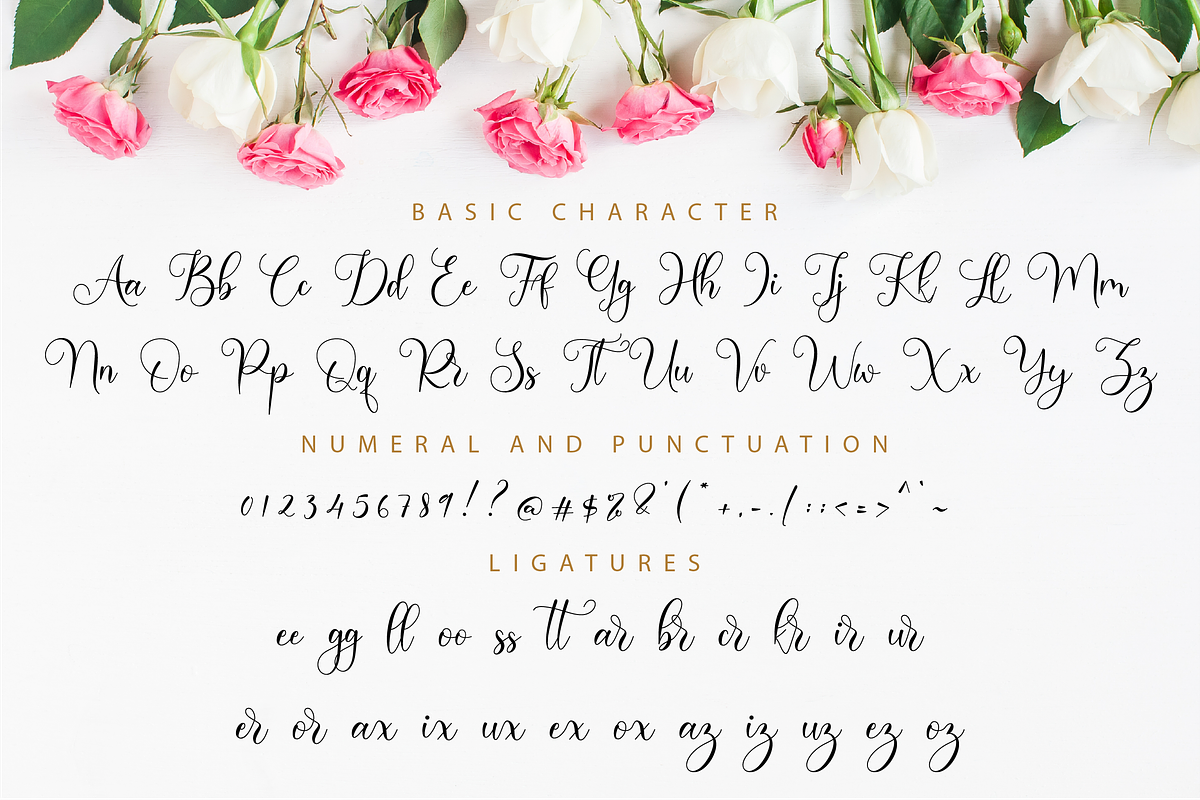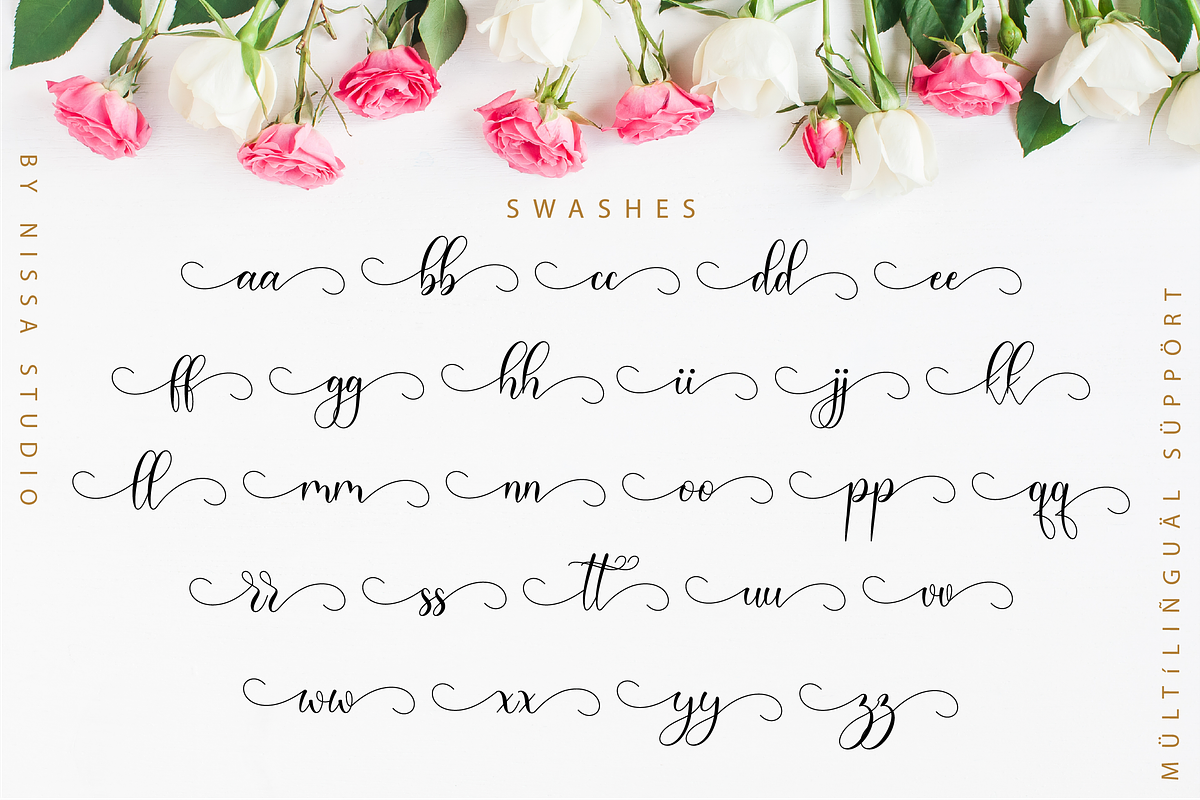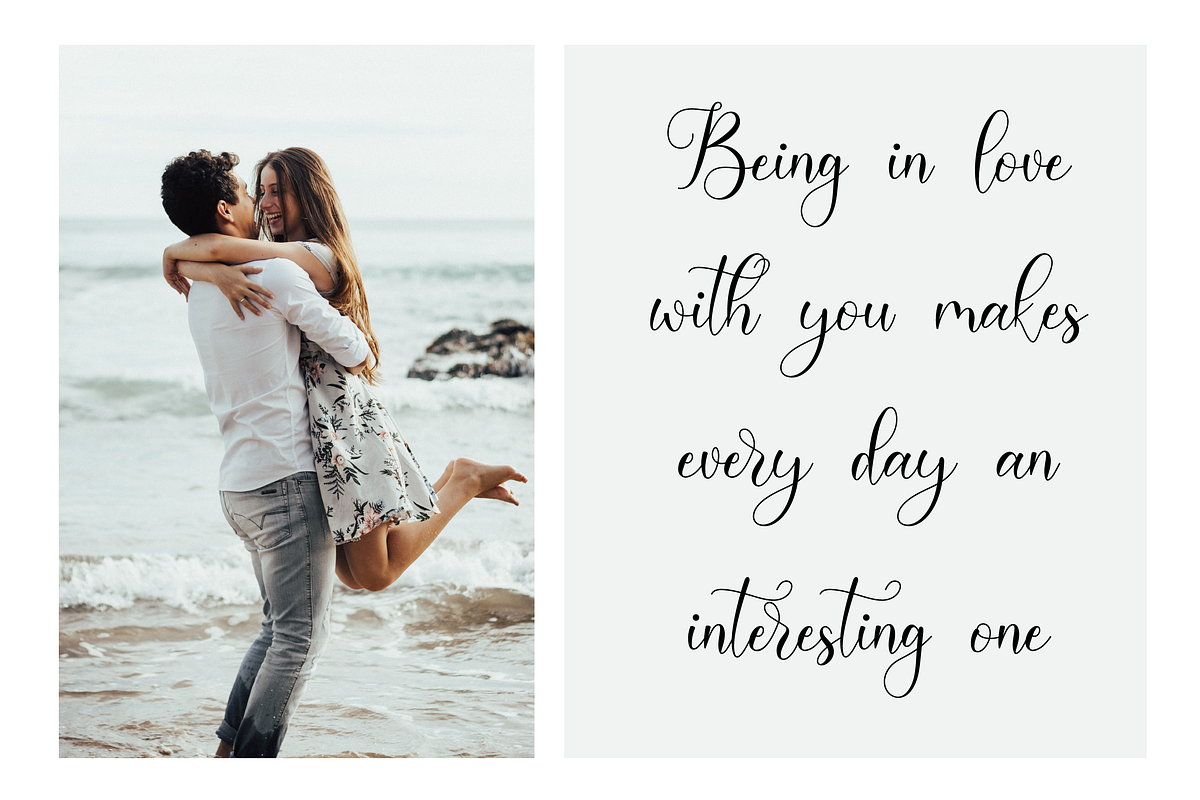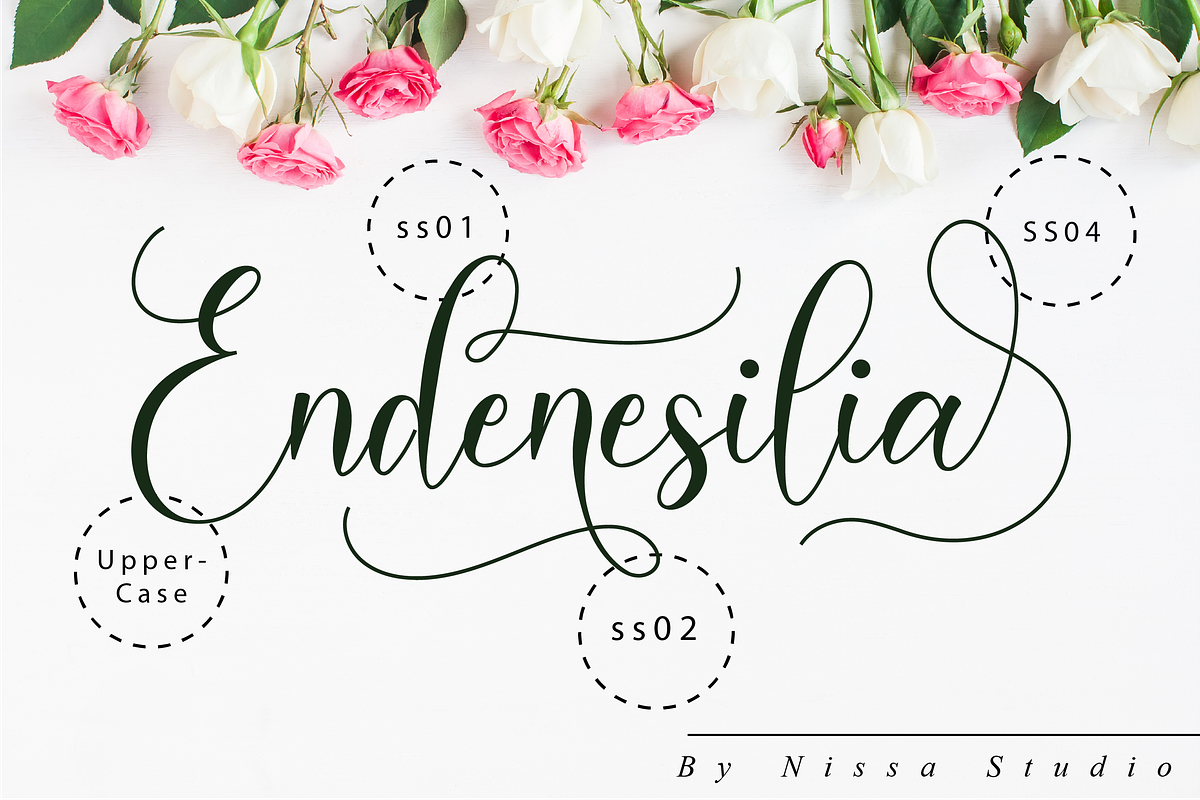
Endenesilia Script
The Endenesilia is a beautiful script font. It has a classy, elegant, and modern look which can be used for logos, branding, invitations, stationary, wedding designs, social media posts, and every other design which needs a handwritten touch.
Each Font Has:
- Modern Handwritten Font
- Beautiful Swash (Ending tail)
- Beautiful Titling (Beginning tail)
- Special Ligatures